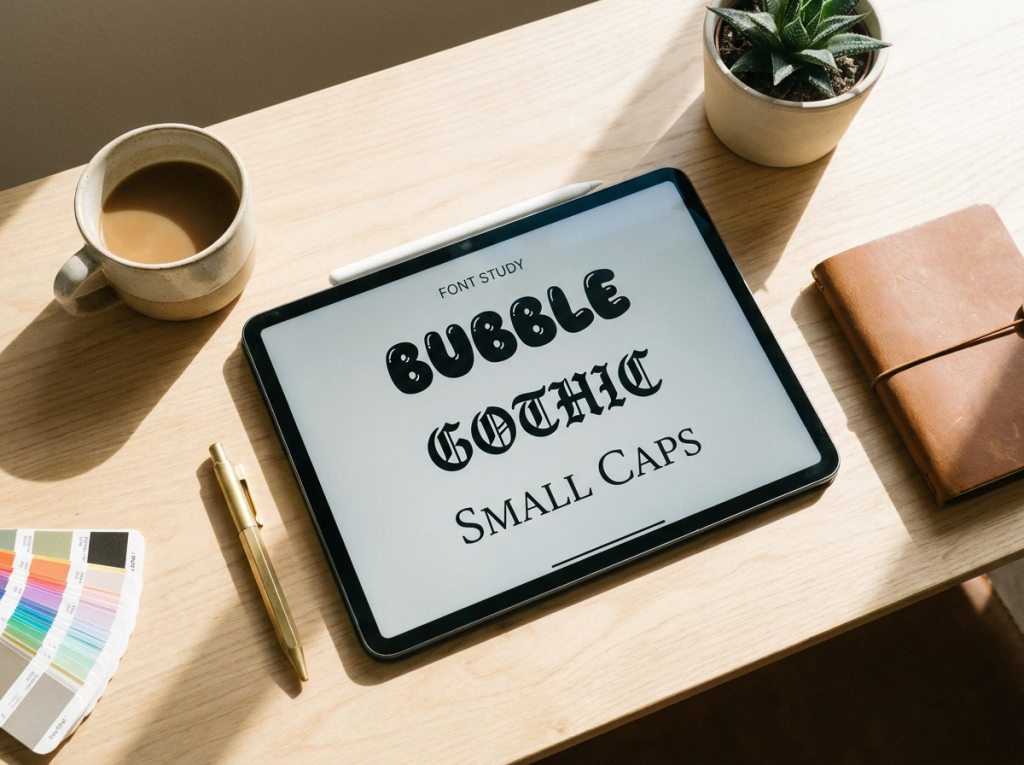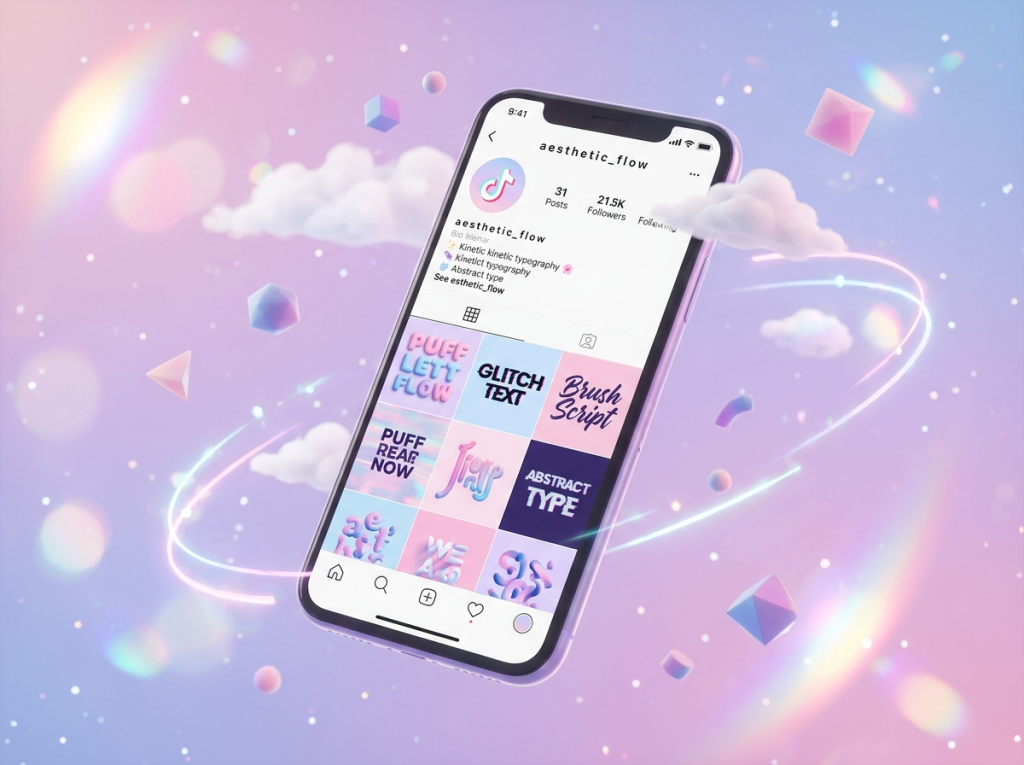
Best Aesthetic Fonts for TikTok Username & Nickname
In the fast-paced world of social media, making a memorable first impression is everything. When users land on your profile, your bio and username are the very first things they notice. If you rely on the standard default text, your profile might easily blend into the background. Using unique typography is one of the easiest ways to catch someone’s eye and express your personality instantly. By using fonts aesthetic for TikTok, you can transform a plain, boring profile into an attractive digital brand that demands attention.
Best Aesthetic Fonts for TikTok
Why Use Aesthetic Fonts for TikTok?
TikTok is a highly visual platform where creativity rules. While your videos do most of the heavy lifting, your profile text acts as your digital storefront. Using custom text styles offers several major benefits:
• Instant Brand Recognition: A unique nickname or username helps your audience remember you.
• Higher Engagement: Eye-catching text stands out in search results and comment threads.
• Personal Expression: Your typography choice immediately communicates your niche.
Popular Text Styles for Usernames
When you use an online generator, your plain letters are converted into unique Unicode characters. Here are some of the most popular styles:
Monospace
Perfect for tech creators and minimalist profiles.
Double Struck
An elegant, outlined style that looks clean and modern.
Popular Text Styles for Usernames